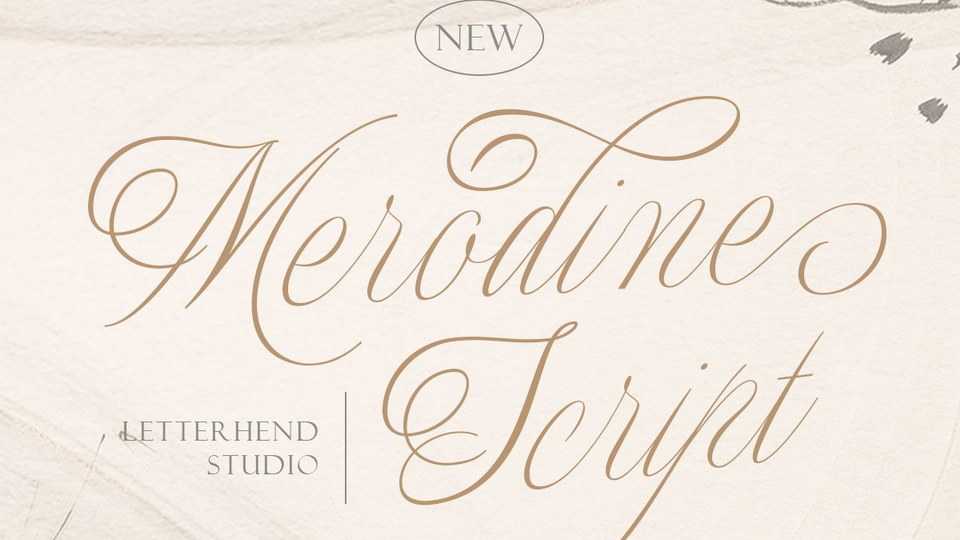
Download Merodine Script font, a beautiful and classy calligraphy typeface that has many swashes that allows you to create beautiful lettering instantly.